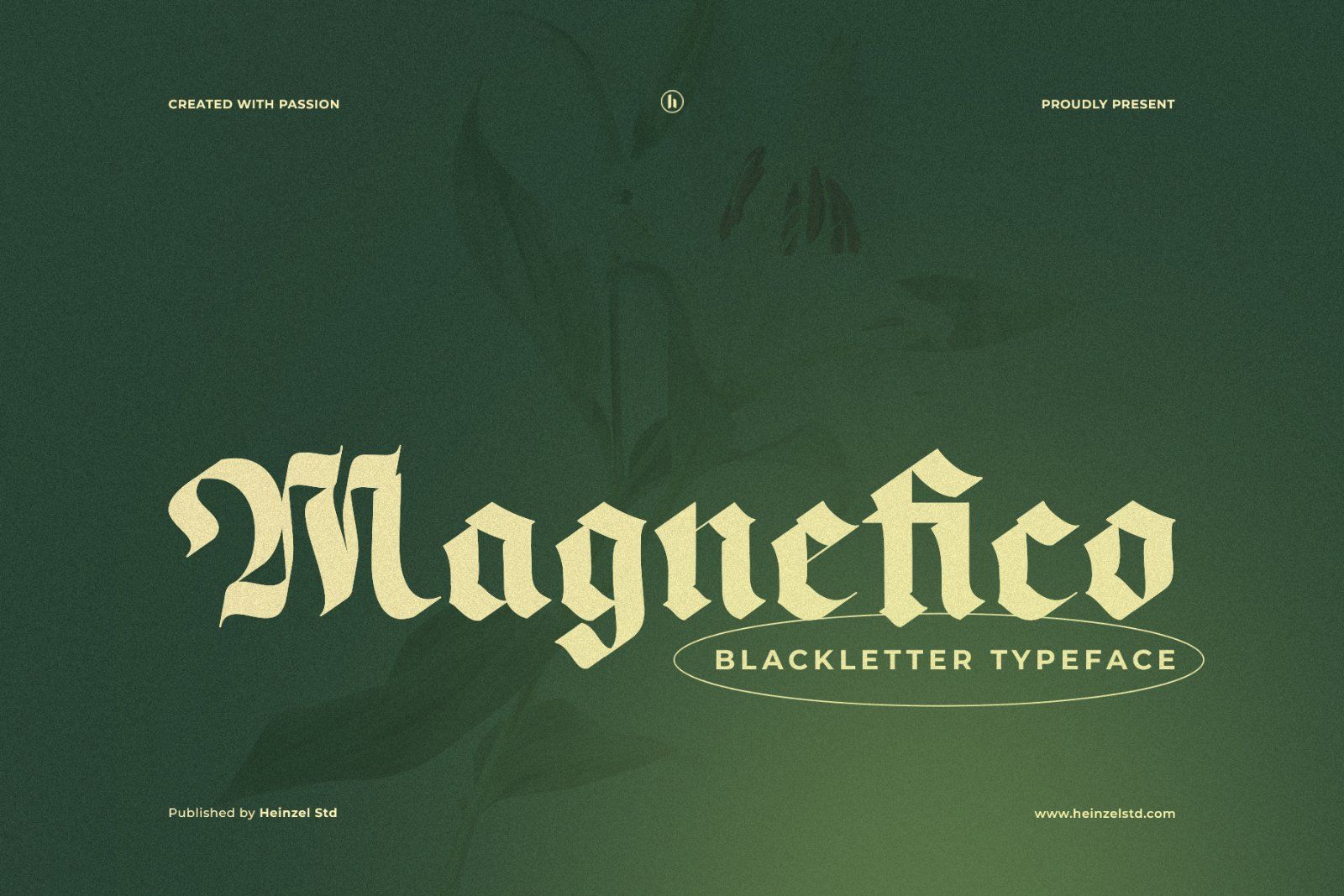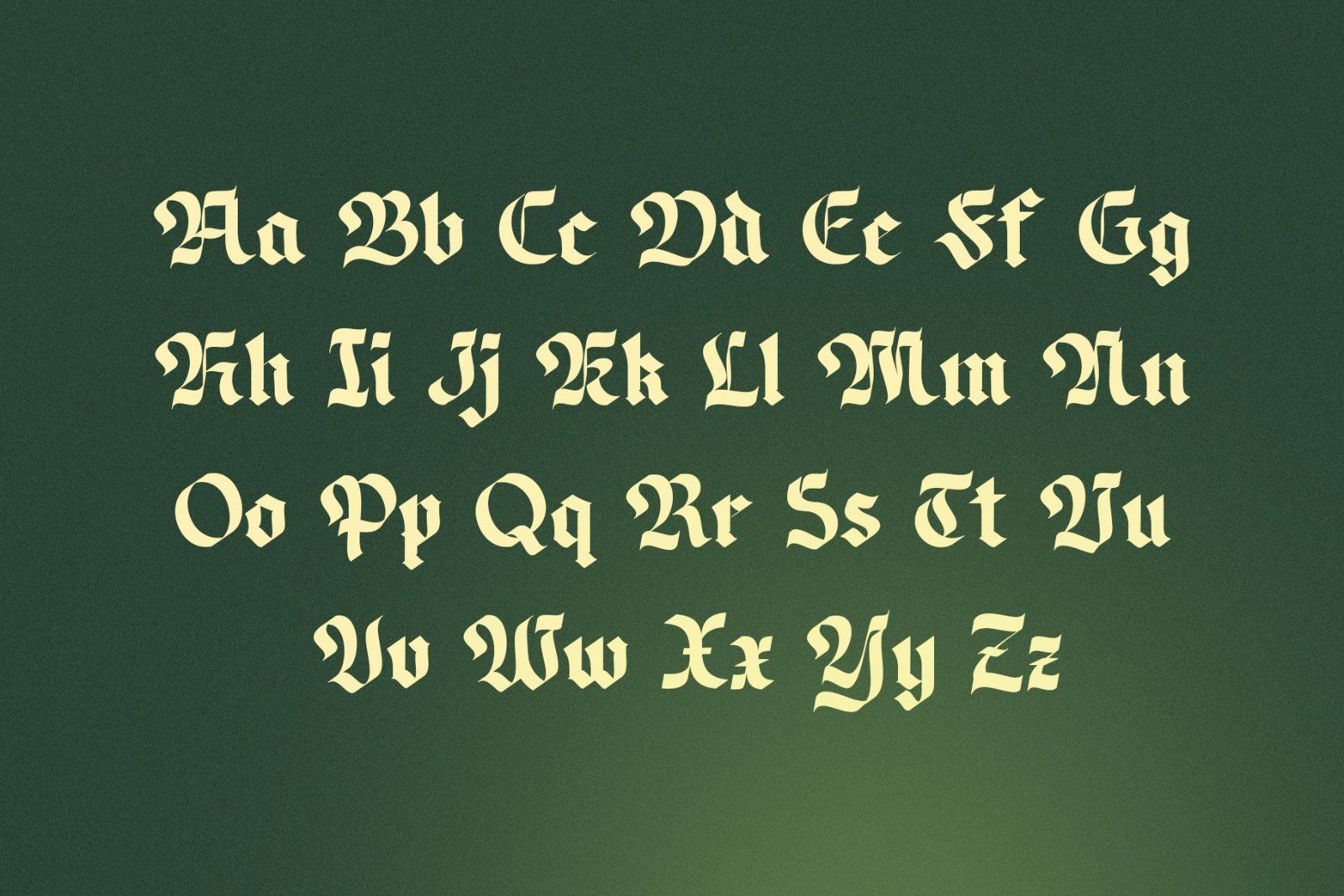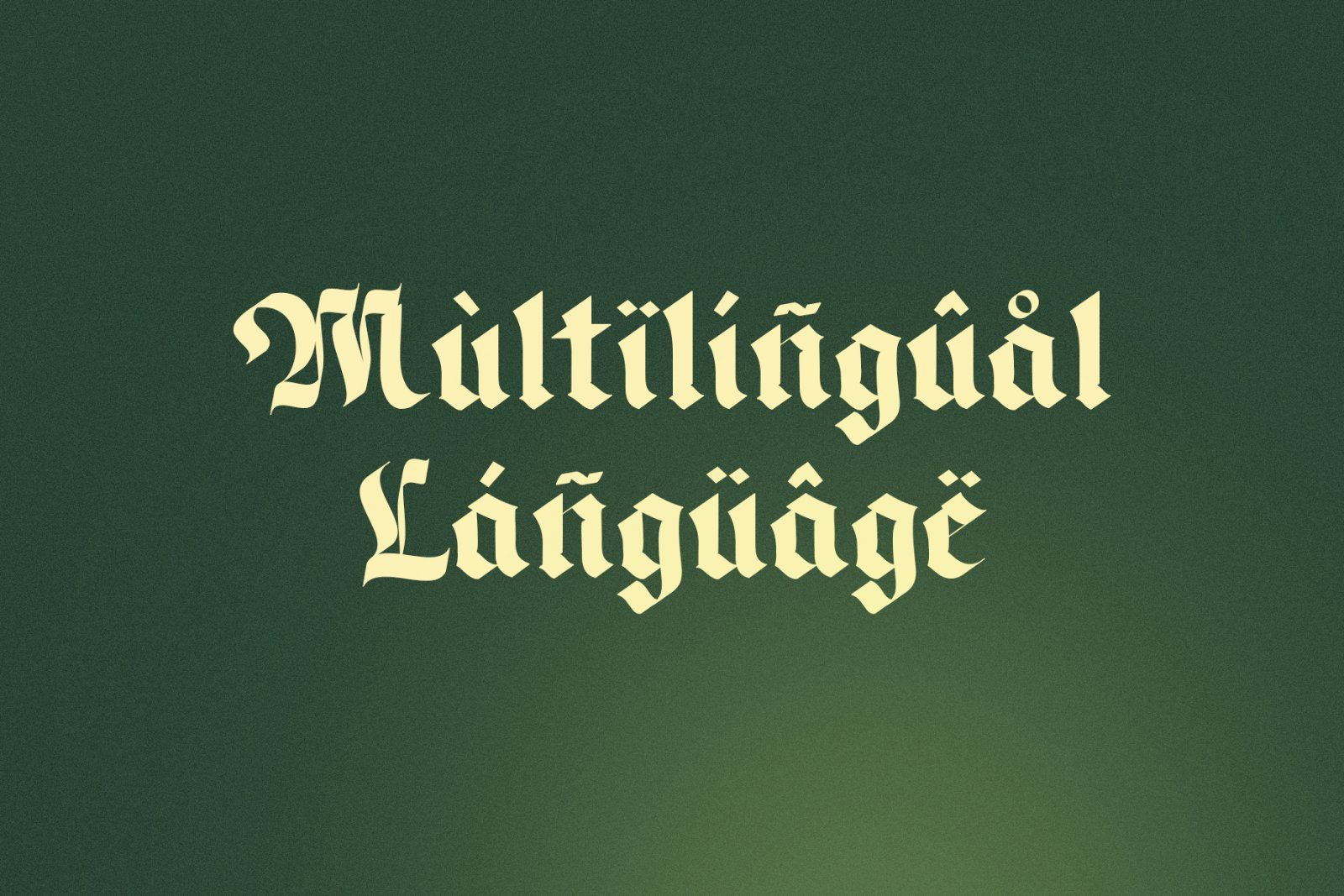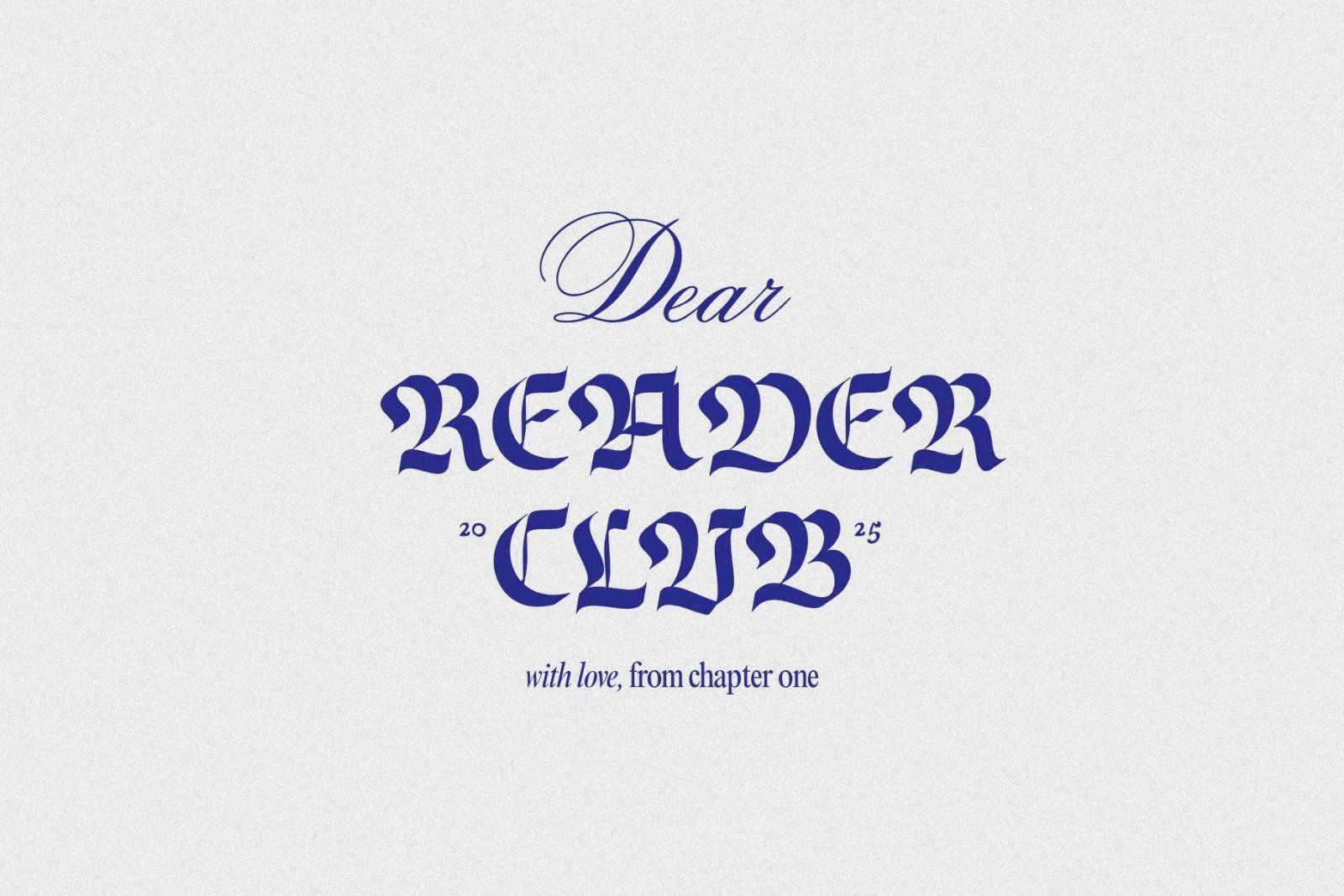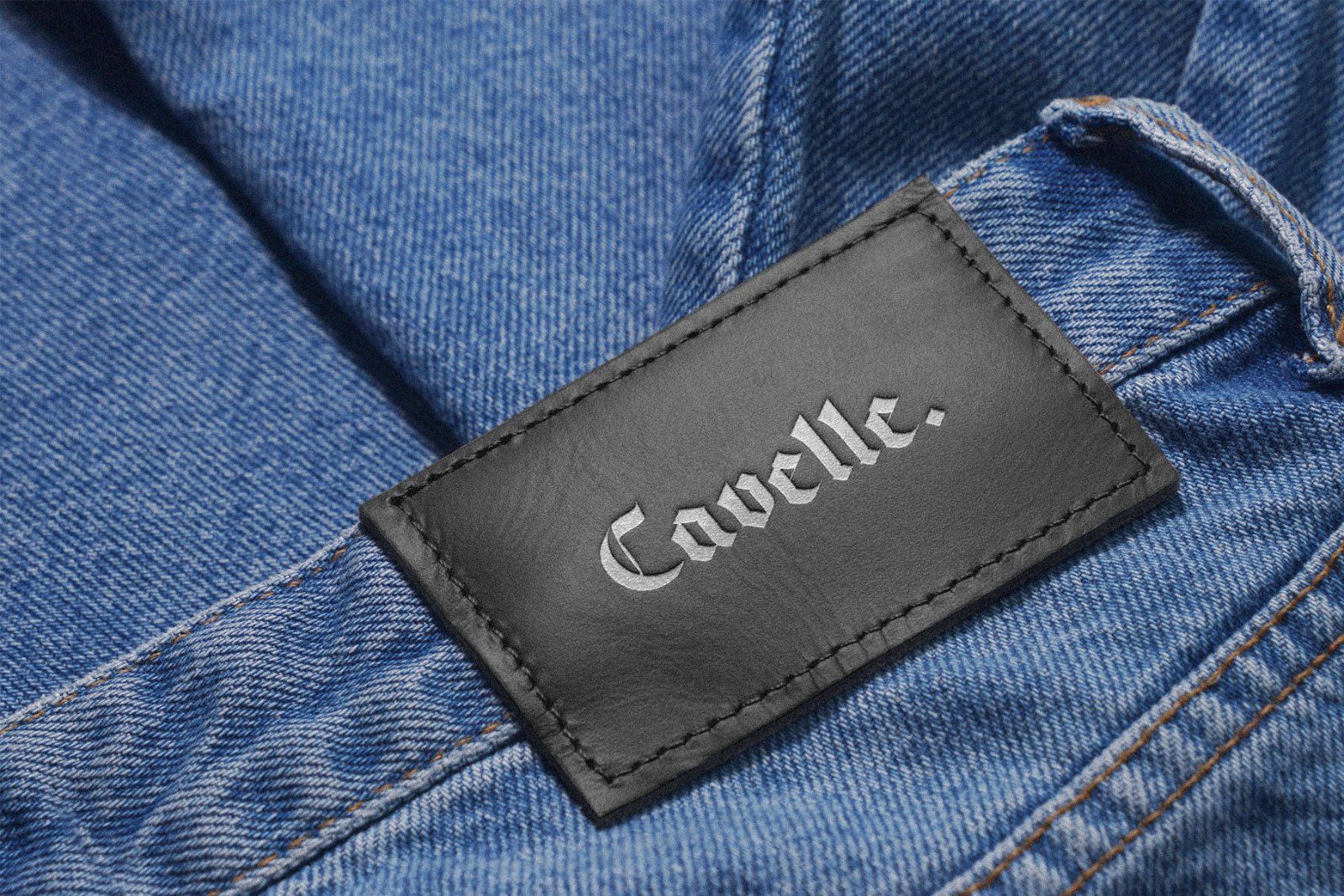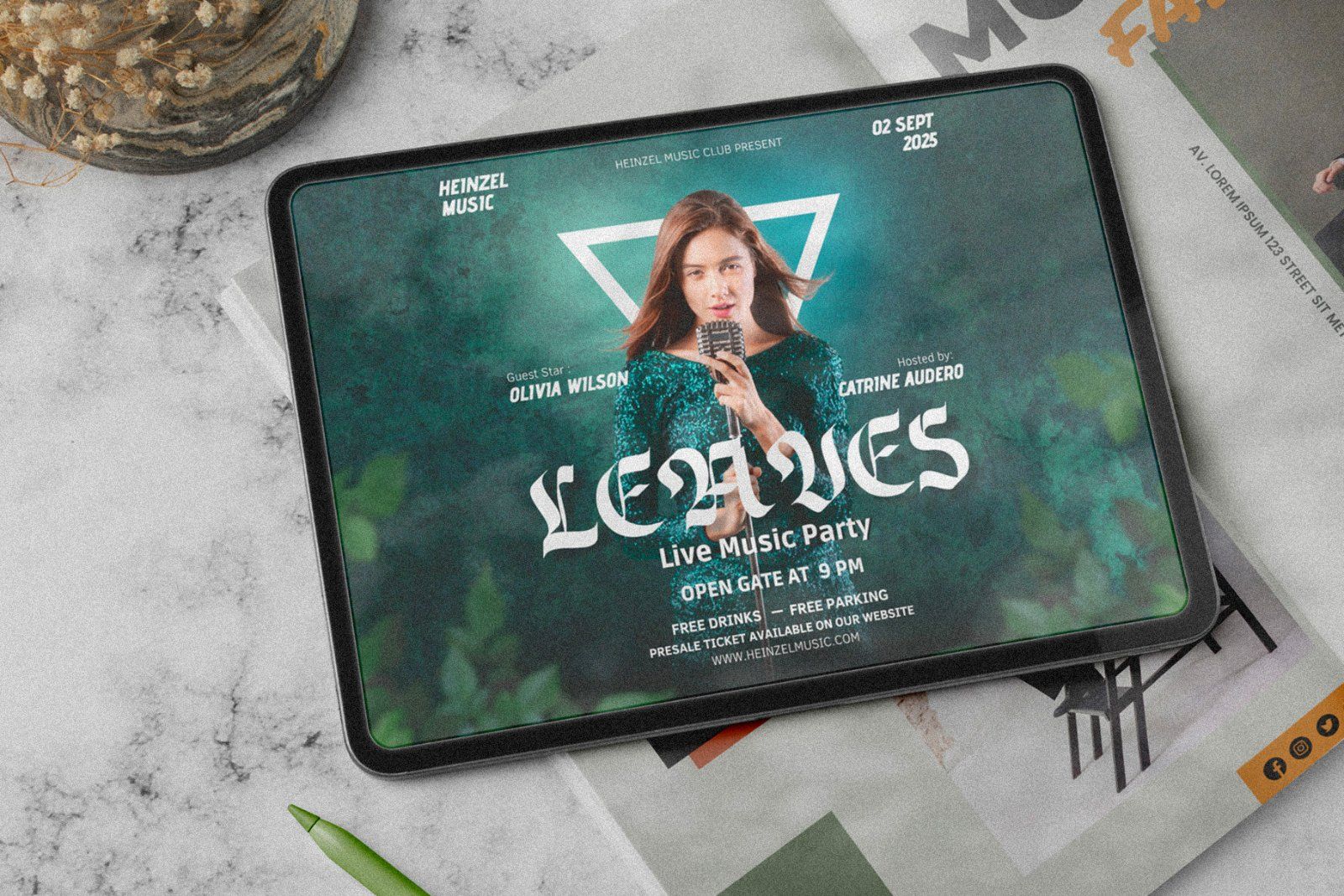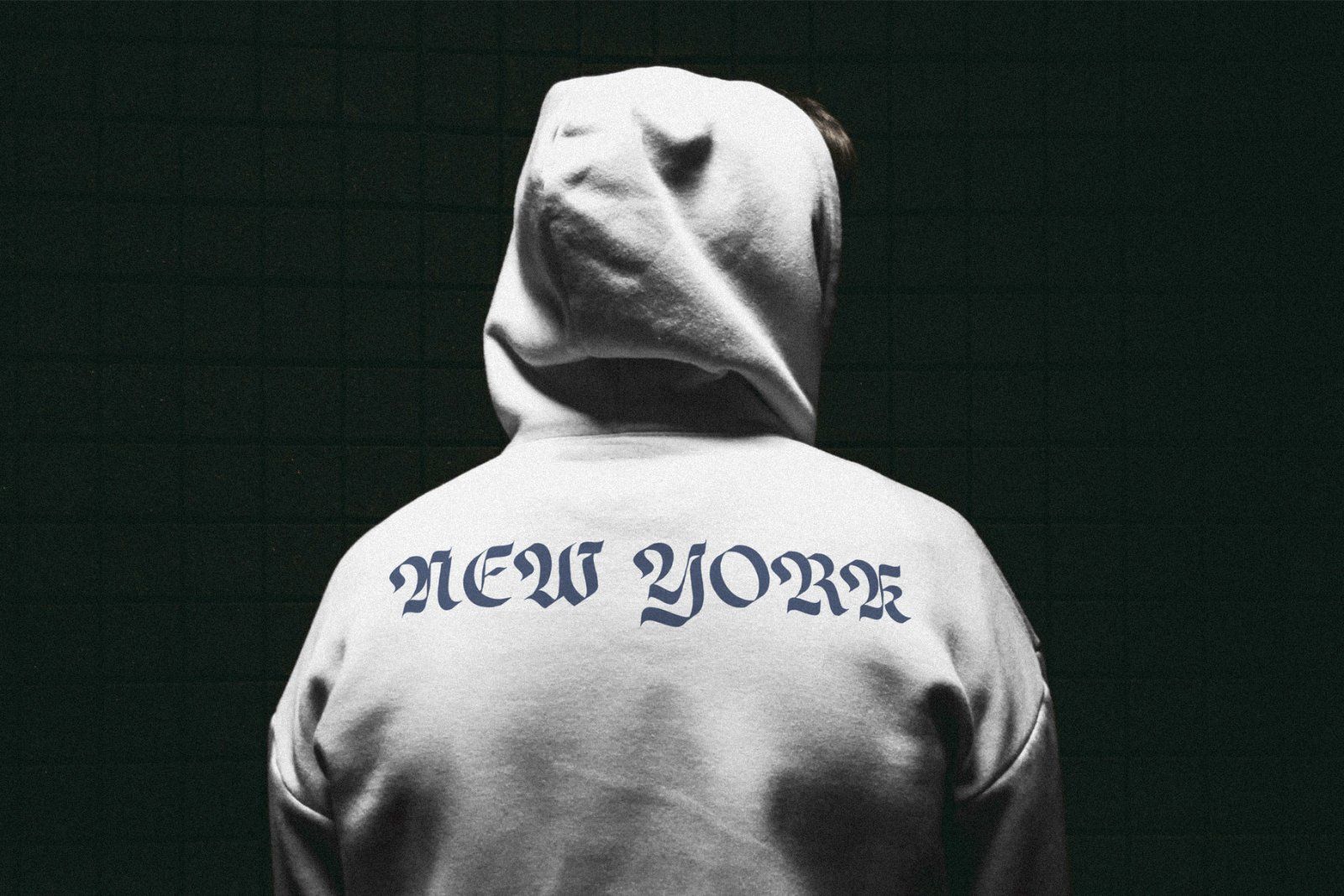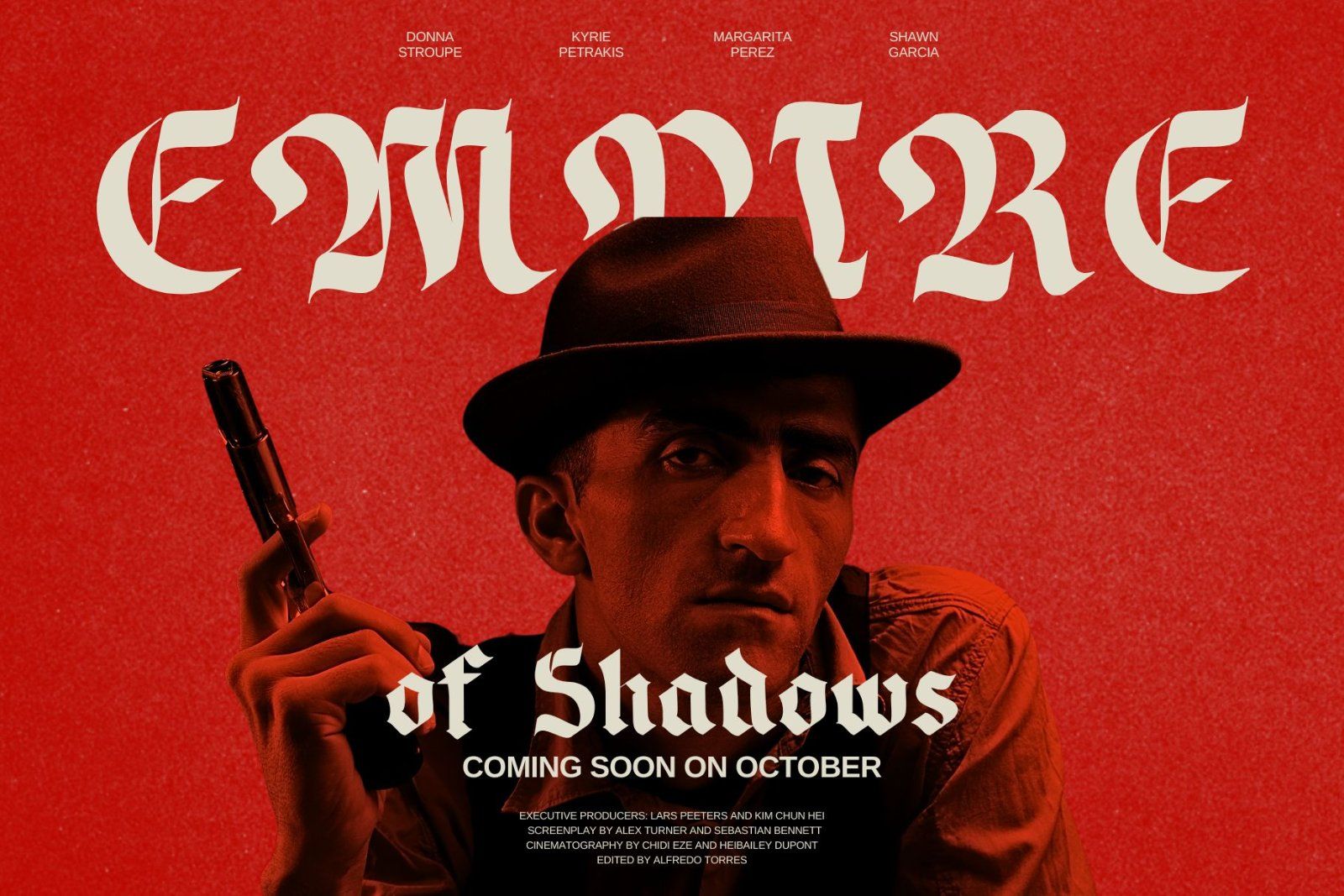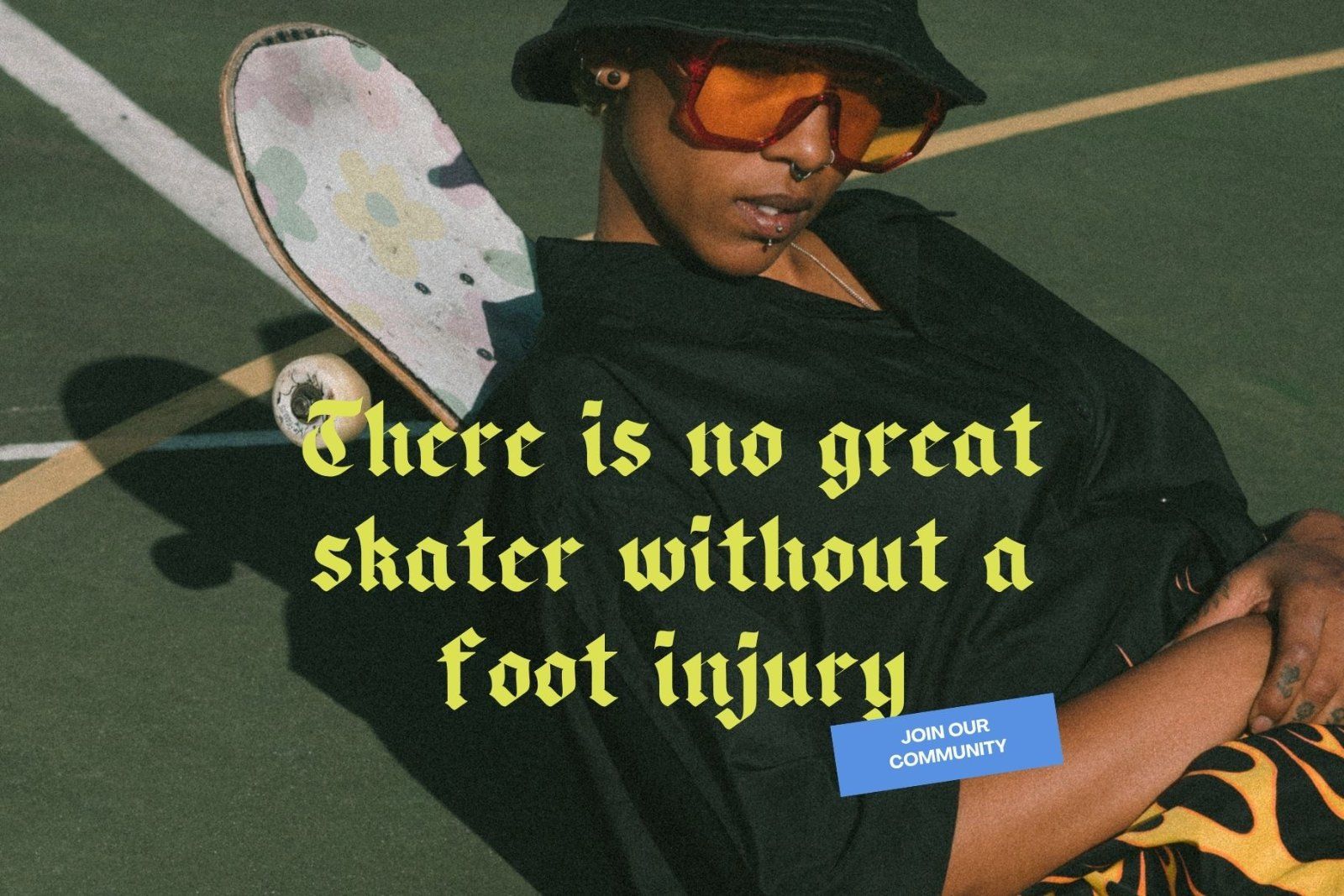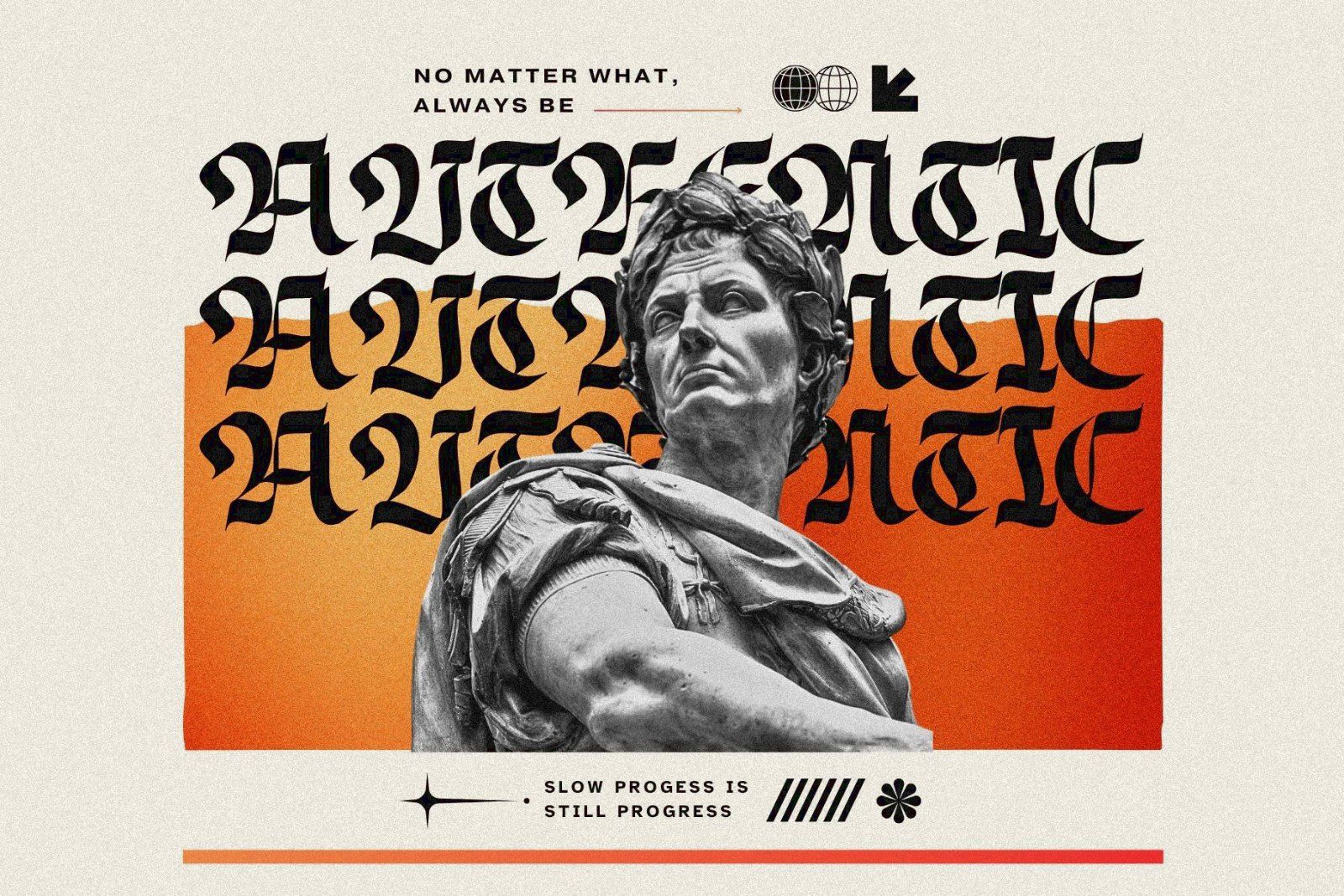
Magnefico is a bold and distinctive blackletter font inspired by classic Gothic typography with a modern, powerful character. Its sharp details, dramatic letterforms, and strong visual presence make it ideal for designs that need a vintage, medieval, or rebellious aesthetic.
Perfect for logos, branding, posters, album covers, apparel, tattoos, packaging, labels, headlines, and merchandise, Magnefico brings an authentic blackletter style while maintaining a strong and recognizable appearance.
Whether you're creating a vintage logo, Gothic branding, streetwear design, tattoo artwork, music artwork, or bold poster, Magnefico adds a striking historical character to your typography.